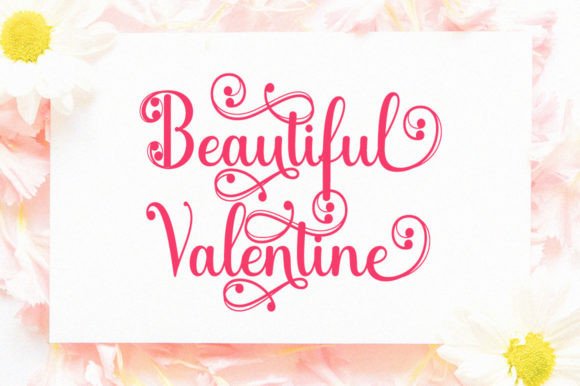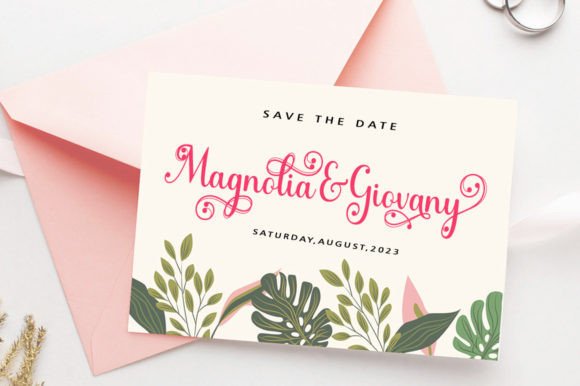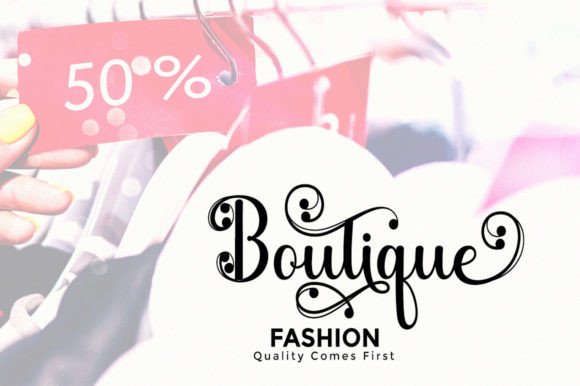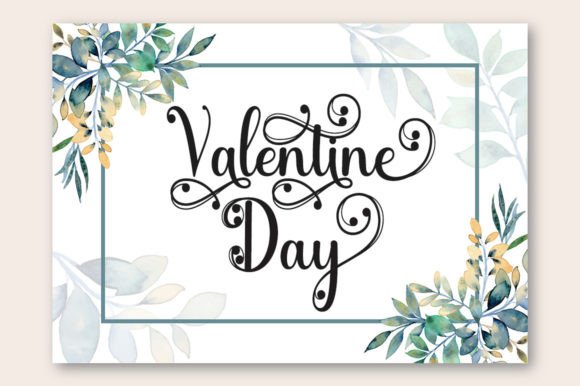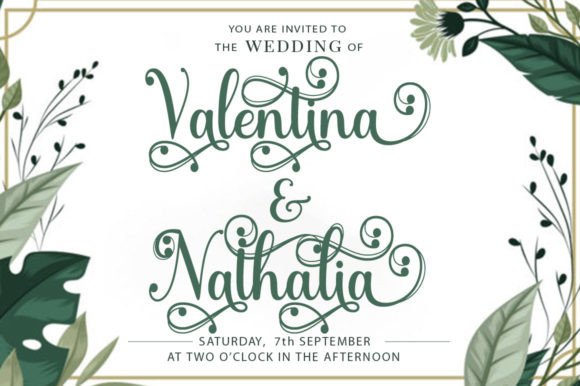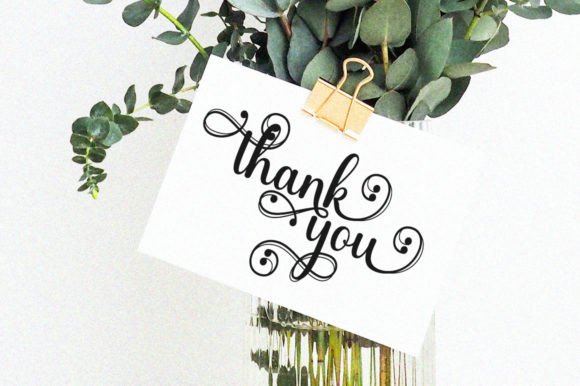
Introducing Belive Script Font: Elevate Your Design with Elegance and Sophistication
In the world of typography, a font can make or break a design. For designers and crafters seeking to add a touch of luxury and refinement to their projects, look no further than the Belive Script Font. This modern and exquisite script font is designed to exude elegance and sophistication, making it perfect for a wide range of applications, from luxurious branding and invitations to editorial design.
The Characteristics of Belive Script Font
Belive Script Font boasts fluid strokes and graceful curves that set it apart from other script fonts. Its timeless style and attention to detail make it an exceptional choice for designers who want to elevate their projects to the next level of refinement. Whether you’re working on a high-end brand identity, a wedding invitation, or a editorial design, Belive Script Font is sure to impress.
What Makes Belive Script Font Special?
One of the standout features of Belive Script Font is its PUA (Private Use Area) encoding. This means that you can access all of the glyphs and swashes with ease, giving you unparalleled flexibility and creative control. With PUA encoding, you can effortlessly navigate the font’s extensive character set, including alternative letters, ligatures, and decorative swashes.
Perfect for Luxurious Branding
When it comes to branding, a font can play a crucial role in conveying a brand’s values and personality. Belive Script Font is specifically designed to evoke a sense of luxury and sophistication, making it an ideal choice for high-end brands. Whether you’re working on a logo, business card, or packaging design, Belive Script Font is sure to help you create a lasting impression.
Ideal for Invitations and Editorial Design
In addition to its use in branding, Belive Script Font is also perfectly suited for invitations and editorial design. Its elegant and refined appearance makes it an excellent choice for wedding invitations, event announcements, and other formal correspondence. In editorial design, Belive Script Font can add a touch of sophistication and glamour to magazines, newspapers, and other publications.
Key Features of Belive Script Font
- Modern and exquisite script font
- Fluid strokes and graceful curves
- Timeless style and attention to detail
- Perfect for luxurious branding, invitations, and editorial design
Why Choose Belive Script Font?
With so many fonts available, why choose Belive Script Font? The answer lies in its unique combination of elegance, sophistication, and versatility. Whether you’re a designer or crafter, Belive Script Font offers a level of refinement and luxury that is hard to find elsewhere. Its PUA encoding and extensive character set make it an incredibly practical choice, while its timeless style ensures that it will remain relevant for years to come.
Get Ready to Elevate Your Design
If you’re looking to add a touch of luxury and sophistication to your design, look no further than Belive Script Font. With its fluid strokes, graceful curves, and PUA encoding, this font is sure to elevate your project to the next level of refinement. Whether you’re working on a branding project, invitation, or editorial design, Belive Script Font is the perfect choice.
In conclusion, Belive Script Font is a modern and exquisite script font that offers a unique combination of elegance, sophistication, and versatility. Its fluid strokes, graceful curves, and PUA encoding make it an exceptional choice for designers and crafters seeking to add a touch of luxury and refinement to their projects.